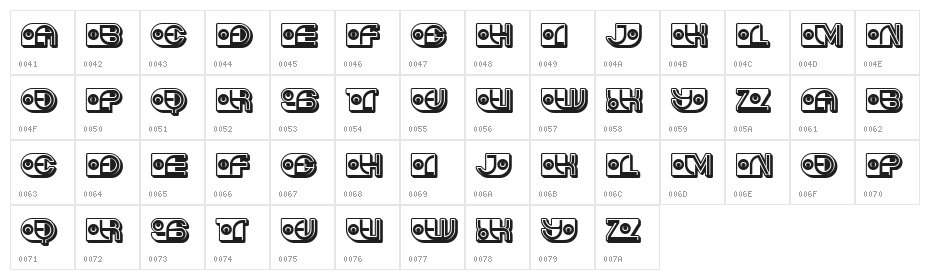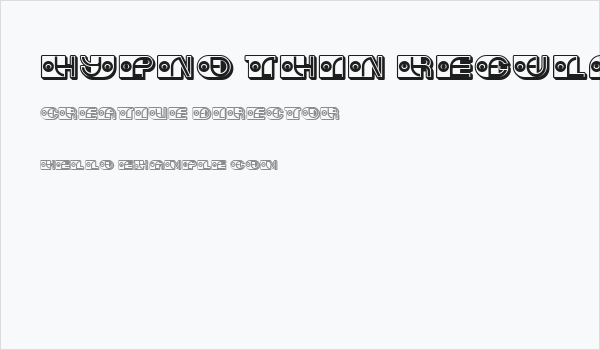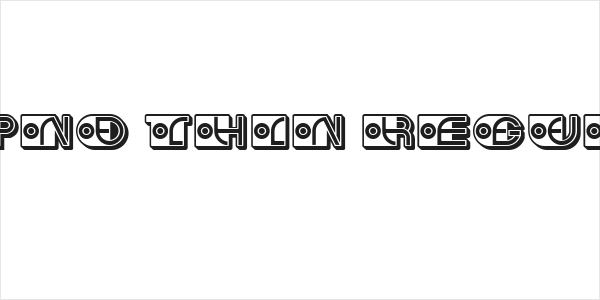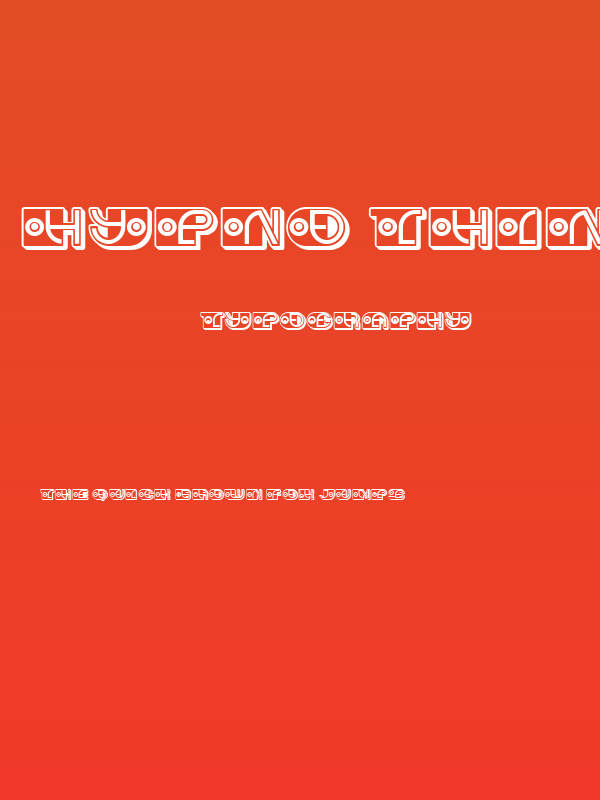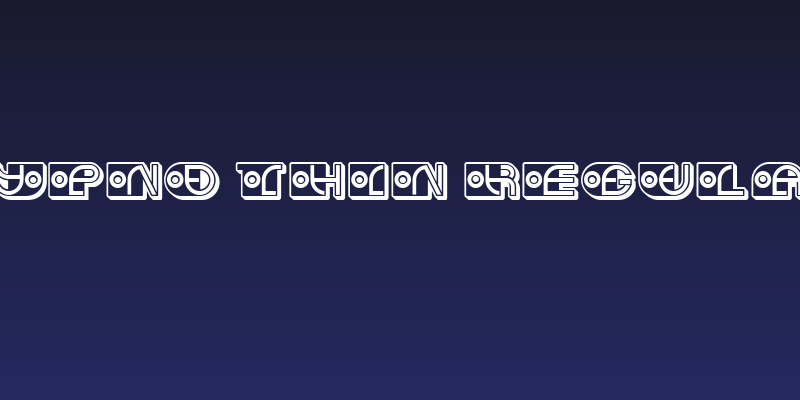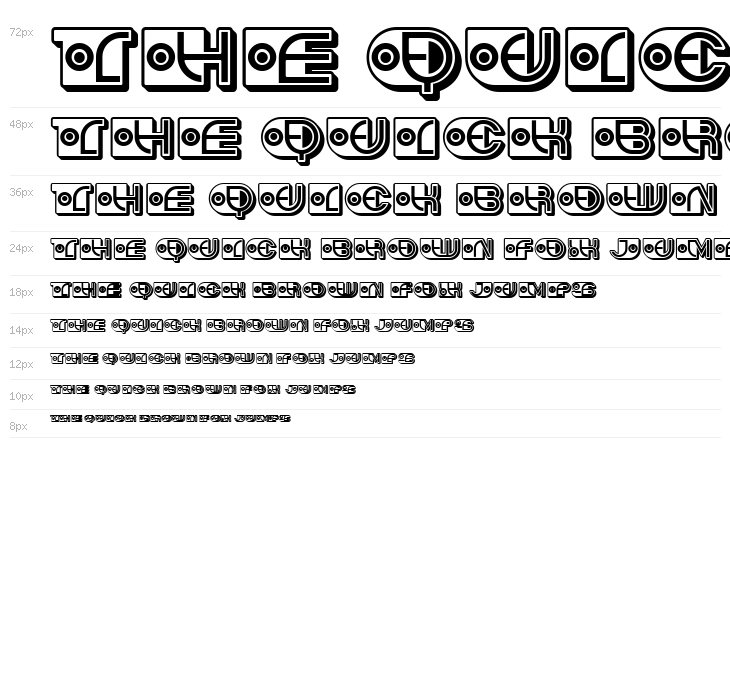
Hypno Thin Regular Font
Hypno Thin Regular Description
This font features a unique and hypnotic design with a bold, geometric style. Each character is outlined with a double line, creating a sense of depth and dimension. The letters are adorned with circular patterns that add a decorative and futuristic touch. The overall appearance is both eye-catching and intricate, making it suitable for creative and artistic projects. The font maintains a consistent width across all characters, ensuring uniformity and balance. Its distinct style is perfect for making a statement in any design.
| Proposed Projects | Ideal for posters, album covers, branding, and any project requiring a striking visual impact. |